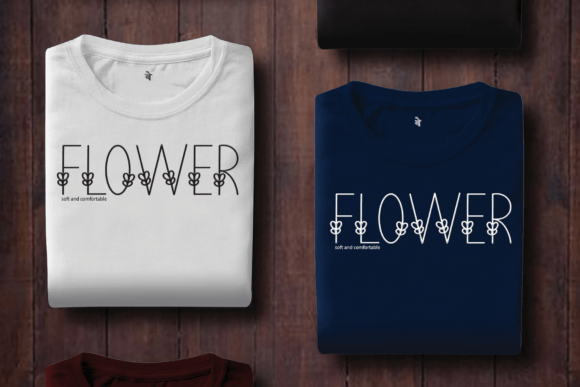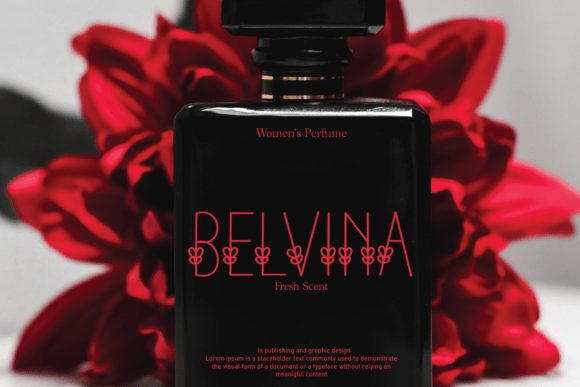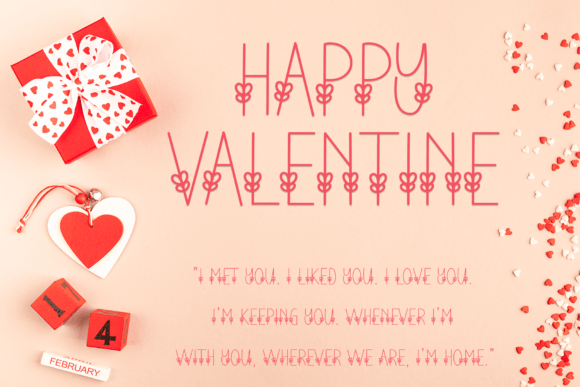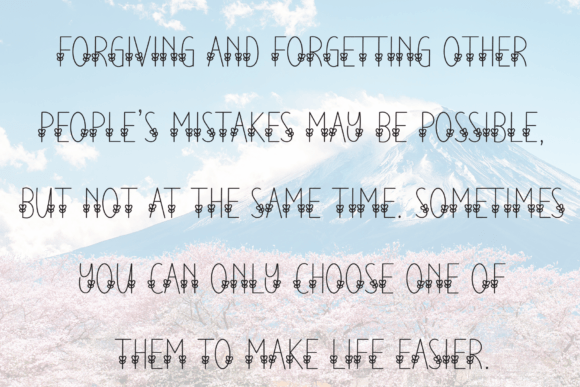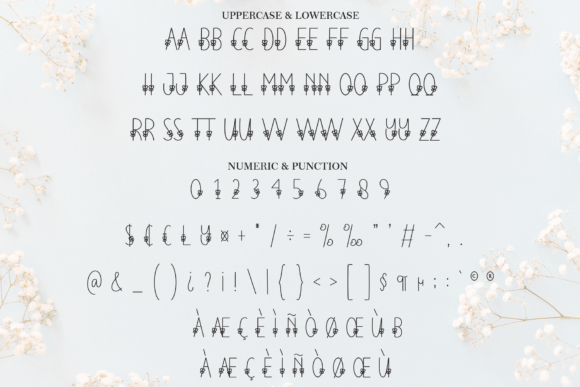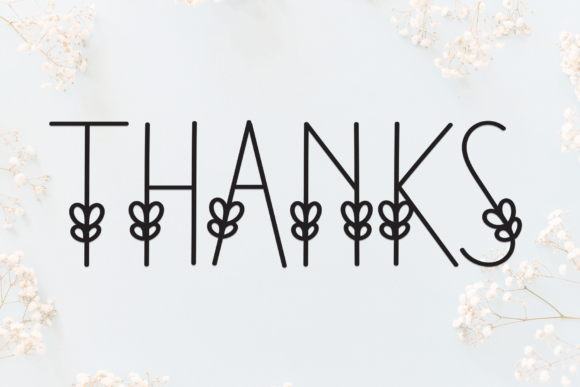
Introduction to Minimalist Spring Font
Minimalist Spring is a sweet and friendly handwritten decorative font.
Fresh and neat, this font is ideal for writing wedding invitations, cards, or any other design that might need a fun touch .
Key Features of Minimalist Spring Font